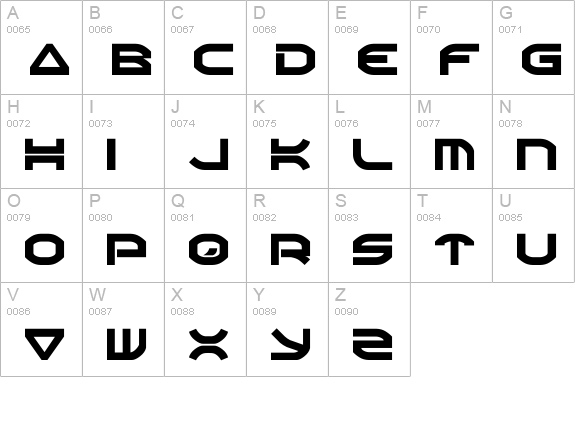
Oberon font is a stunning and elegant typeface that exudes sophistication and modernity. Its clean lines and stylish curves make it perfect for a wide range of design projects, from branding to editorial design. The versatility of Oberon font allows it to be used in both large display settings and small body text with equal impact. What sets Oberon font apart is not just its aesthetic appeal, but also its accessibility. This exquisite font is available for free download at FontsMarket.com, making it easily accessible to designers and creatives looking to elevate their projects with a touch of class. Whether you're working on a logo, website, or print materials, Oberon font is sure to add a touch of elegance and professionalism to your work. Download Oberon font today and let its timeless beauty enhance your designs.